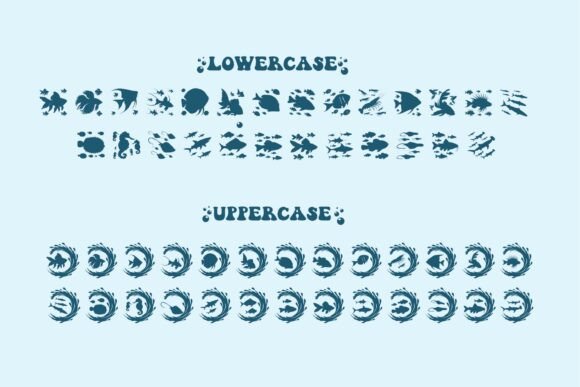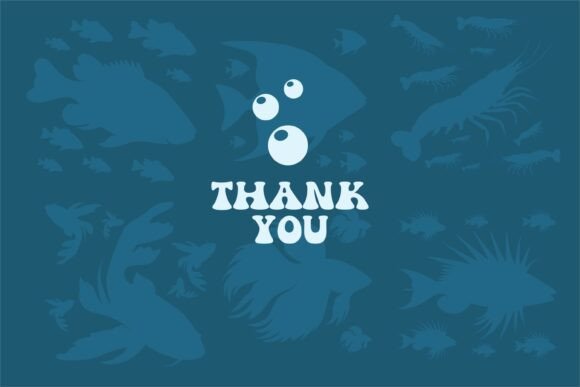
Discover the Fresh Catch of Typography: Introducing Fishora Font
Are you tired of using the same old fonts for your marine-themed designs? Look no further! Fishora Font is here to make a splash in the world of typography. Inspired by the beauty and diversity of the underwater world, Fishora Font is a unique and captivating typeface that reflects the character of sea fish, freshwater fish, and shrimp.
The Inspiration Behind Fishora Font
The creators of Fishora Font drew inspiration from the ocean’s vast array of aquatic life. From the majestic movements of sea fish to the delicate details of freshwater fish and shrimp, every aspect of the underwater world has been meticulously studied and translated into this stunning font.
The letterforms of Fishora Font are designed to feel organic, fluid, and dynamic, much like the movement of fins, flowing water, and the natural textures of aquatic life. This results in a font that exudes a sense of freshness, playfulness, and adventure.
Key Features of Fishora Font
- Organic and Fluid Design: Fishora Font boasts an organic and fluid design that captures the essence of the underwater world.
- Bold, Fresh, and Playful: This font combines a bold, fresh, and playful impression, making it perfect for marine-themed designs.
- Unique Visual Identity: Fishora Font is designed to stand out and remain easily recognizable, delivering a unique visual identity that feels lively, natural, and full of aquatic character.
Perfect for Marine-Themed Designs
Fishora Font is ideal for a wide range of marine-themed designs, including:
- Seafood Logos: Create a memorable brand identity for your seafood business with Fishora Font.
- Fish Restaurants: Add a touch of aquatic charm to your restaurant’s branding and marketing materials.
- Fisheries Brands: Establish a strong brand presence with Fishora Font’s bold and fresh design.
- Seafood Packaging: Make your seafood packaging stand out with Fishora Font’s unique and eye-catching design.
- Posters and Illustrations: Add a splash of color and creativity to your posters and illustrations with Fishora Font.
- Creative Digital Content: Use Fishora Font to create engaging and interactive digital content that will leave a lasting impression.
Why Choose Fishora Font?
With Fishora Font, you can:
- Stand Out from the Crowd: Fishora Font’s unique design ensures that your brand or design will stand out from the competition.
- Convey a Sense of Freshness and Adventure: Fishora Font’s playful and dynamic design conveys a sense of freshness and adventure, perfect for brands that want to evoke a sense of excitement and exploration.
- Enhance Your Brand Identity: Fishora Font can help you establish a strong brand identity that resonates with your target audience.
| Font Name | Fishora Font |
| Author | edywiyonopp |
Fishora Font is a game-changer for designers and crafters looking to add a touch of the underwater world to their marine-themed designs. With its unique and captivating design, Fishora Font is sure to make a splash in the world of typography. So why wait? Dive into the world of Fishora Font and discover a fresh catch of creativity and inspiration for your next design project!